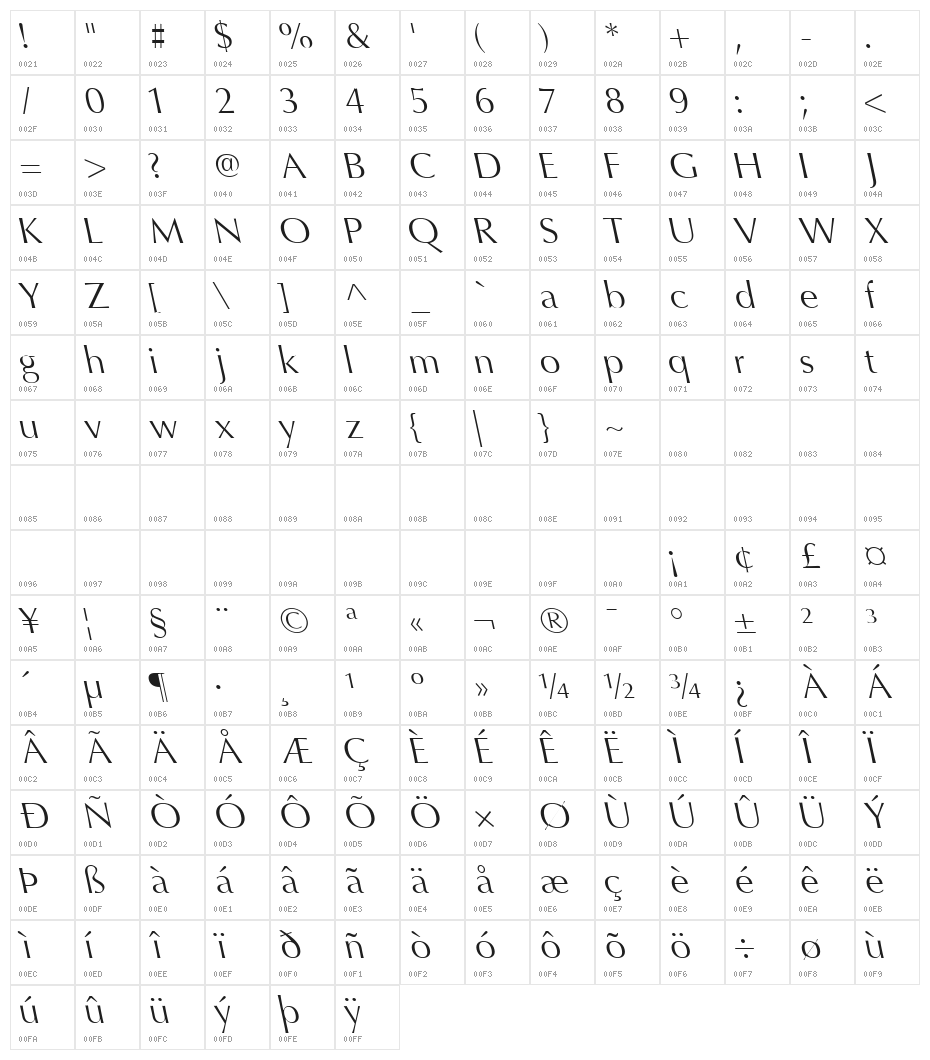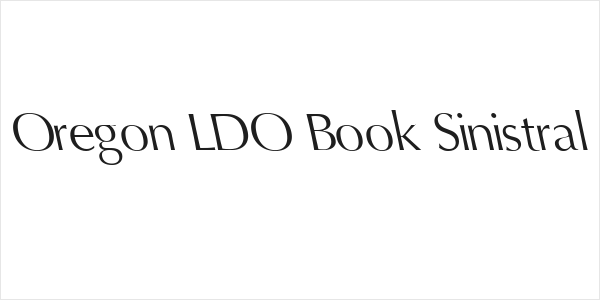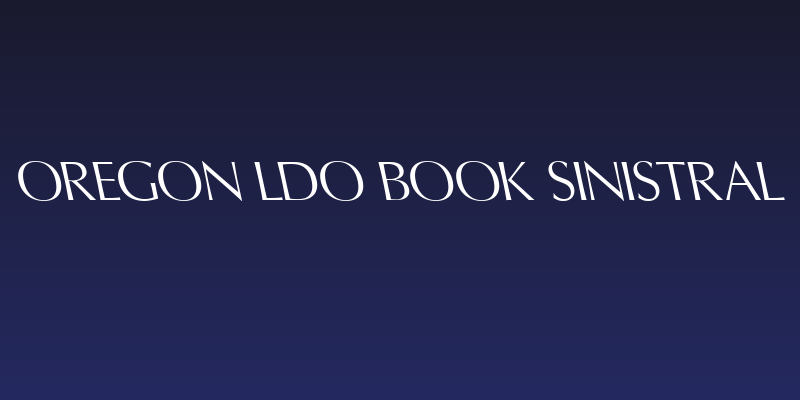
Oregon LDO Book Sinistral Font
Oregon LDO Book Sinistral Description
This font exhibits a sophisticated and elegant style, characterized by its clean and sharp lines. The uppercase letters are tall and slightly condensed, giving a modern and sleek appearance. The lowercase letters maintain a consistent height with a subtle contrast in stroke thickness, adding a touch of refinement. The numerals are well-proportioned, aligning seamlessly with the overall aesthetic. Special characters are designed with the same attention to detail, ensuring a cohesive look across all glyphs. This font's design is both functional and stylish, making it suitable for a variety of applications.